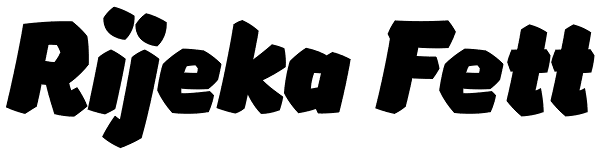
Rijeka
Is it possible to design a font with a cutter? Yes! Rijeka consists of three font weights, Light, Medium and Bold, and includes 310 characters for 16 languages. Luzi Gantenbein designed the Font in the Hochschule der Künste Bern.